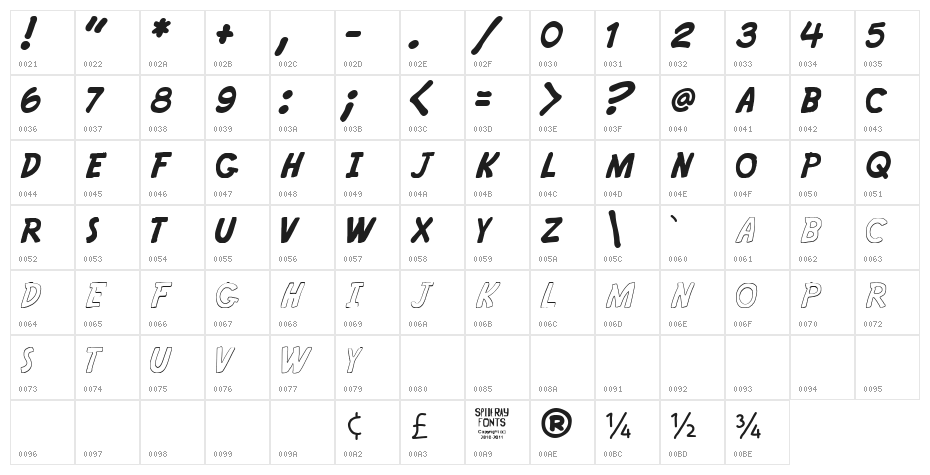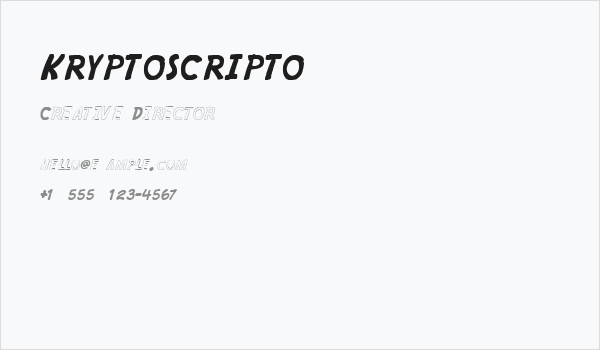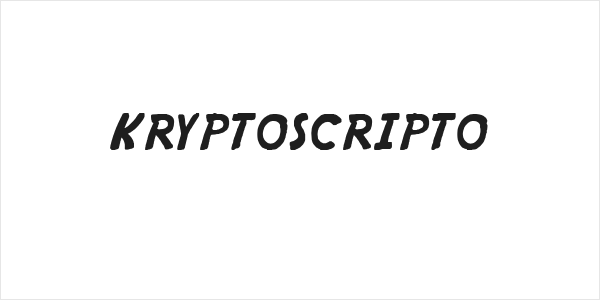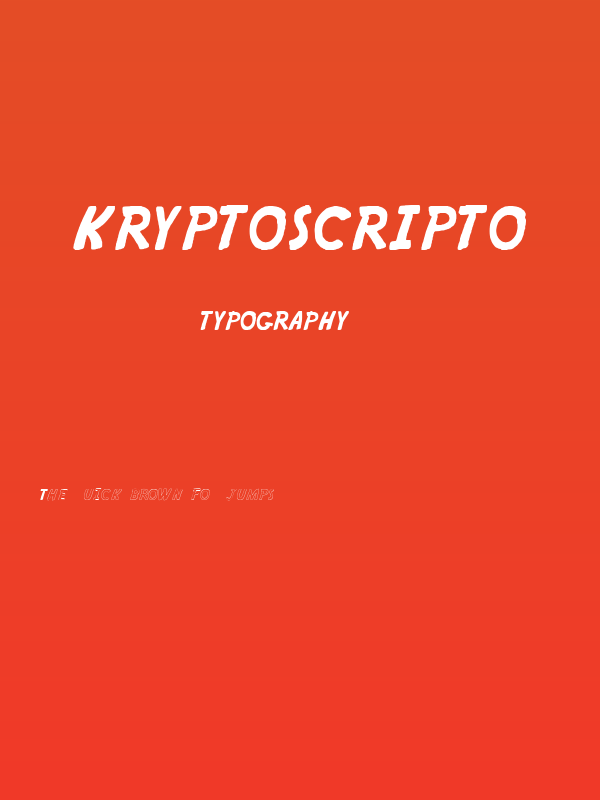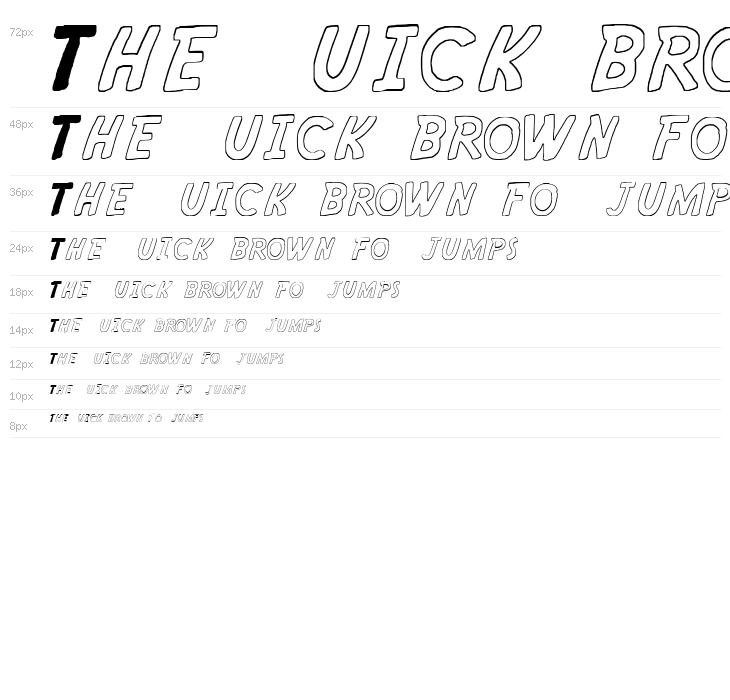
KRYPTOSCRIPTO Font
KRYPTOSCRIPTO Description
This font features a bold and dynamic style with a slightly italicized appearance, giving it a sense of movement and energy. The uppercase letters are robust and impactful, while the lowercase letters maintain a consistent flow. The numbers are bold and clear, ensuring readability. Special characters are designed with a playful touch, adding to the font's overall lively aesthetic. The strokes are thick, providing a strong visual presence, and the character spacing is moderately tight, which enhances the cohesive look of the text.
Proposed ProjectsIdeal for projects that require a bold statement, such as posters, logos, and branding materials. It can also be used for headlines and titles that need to capture attention.